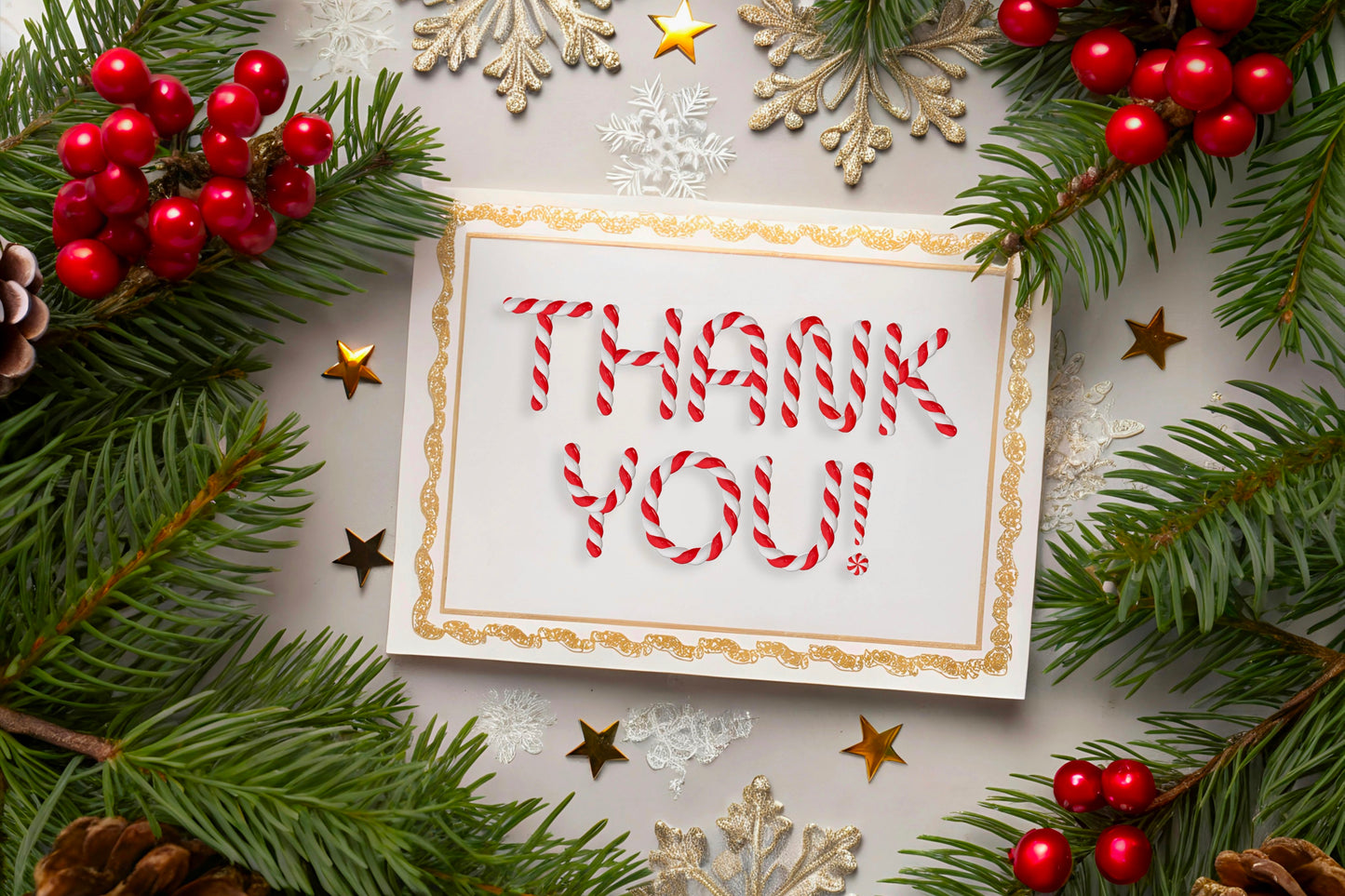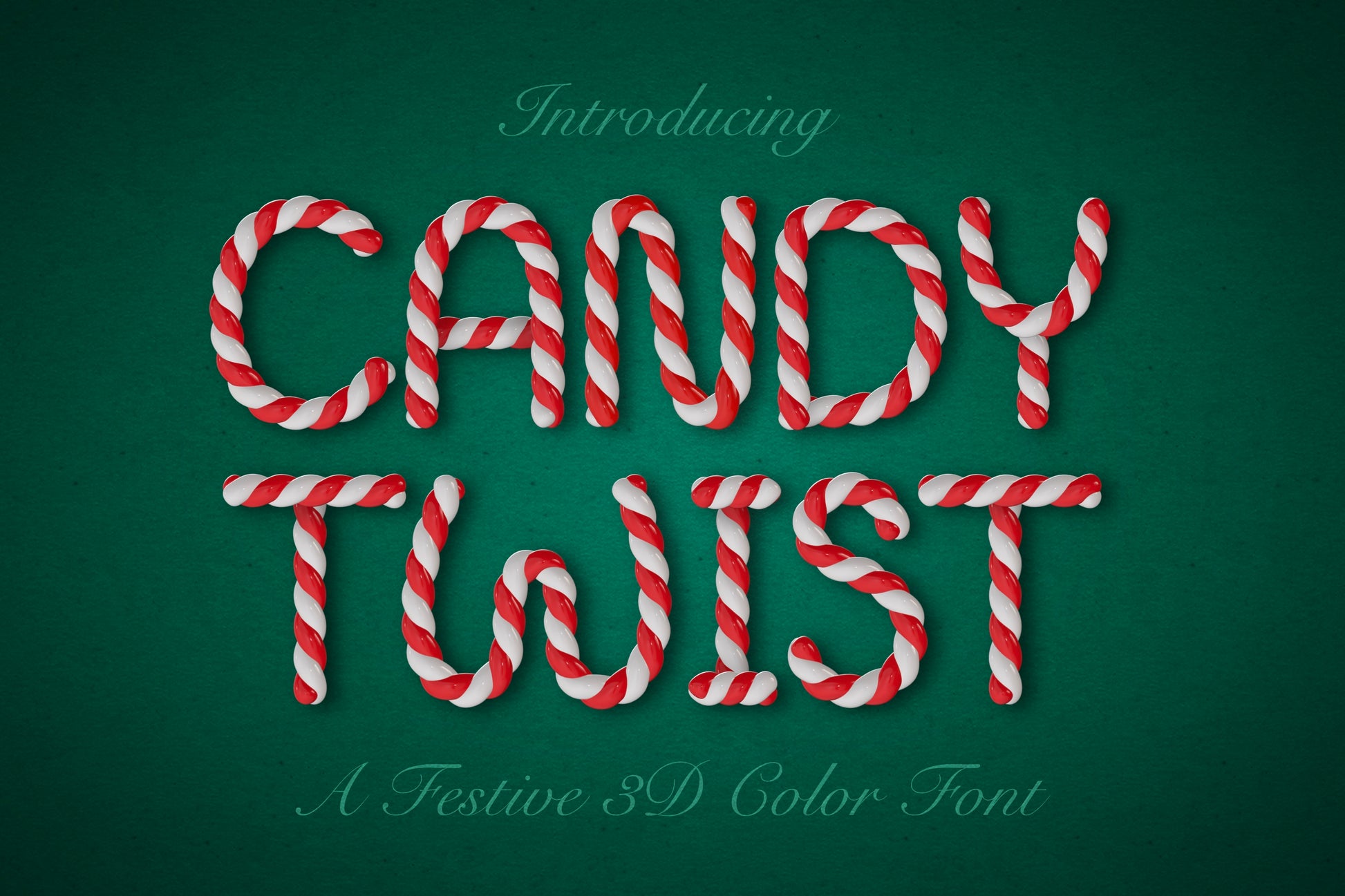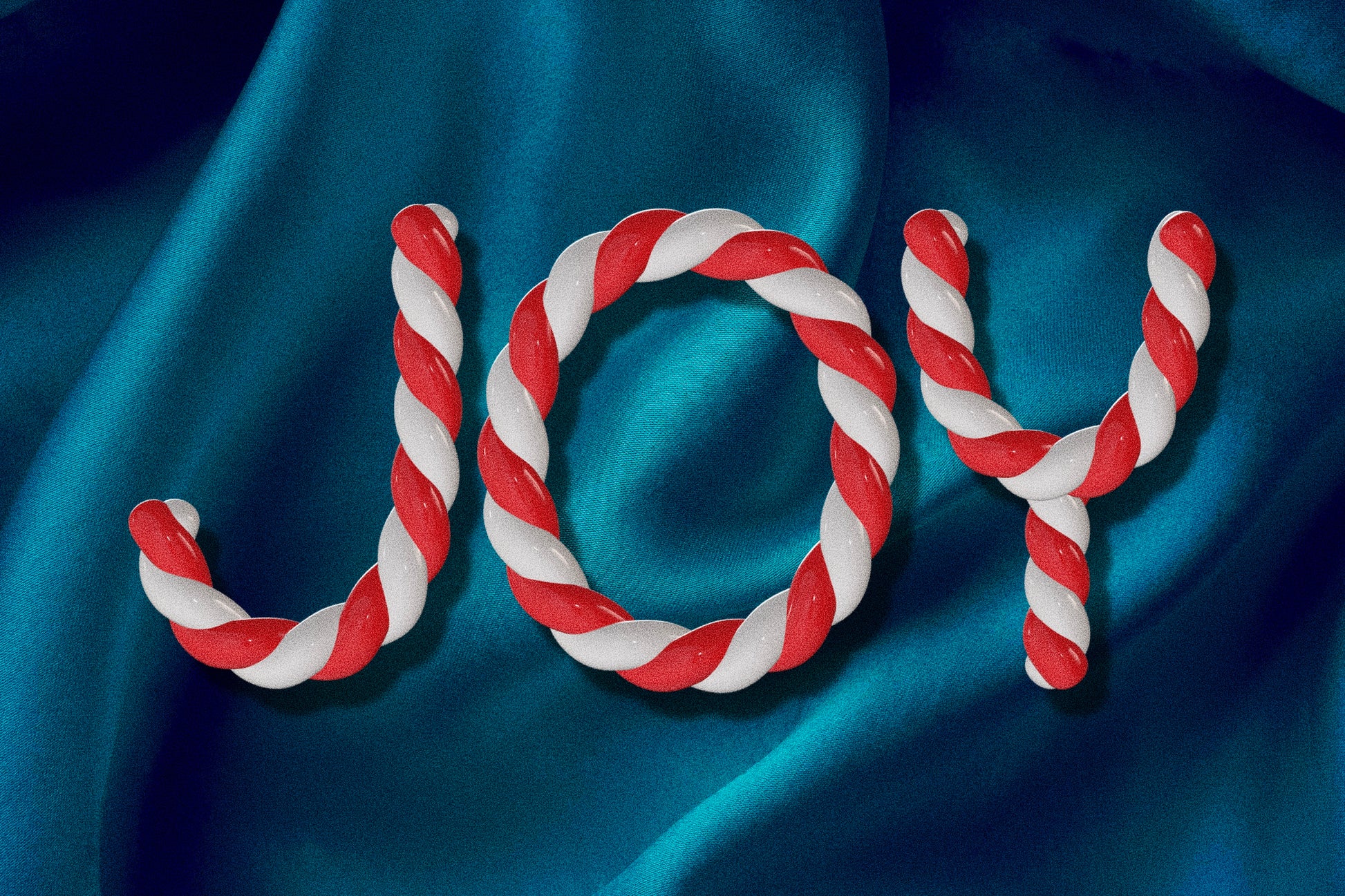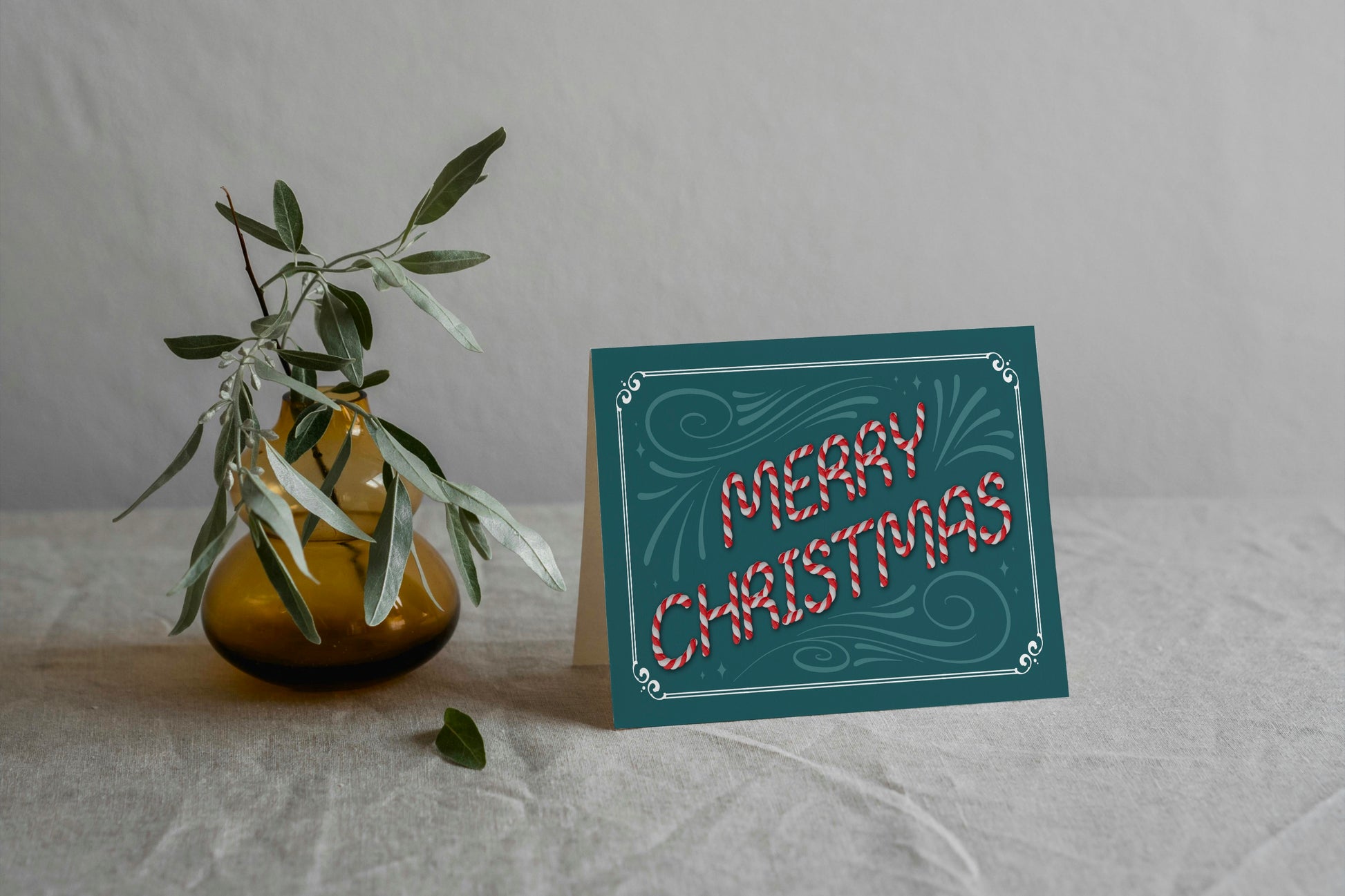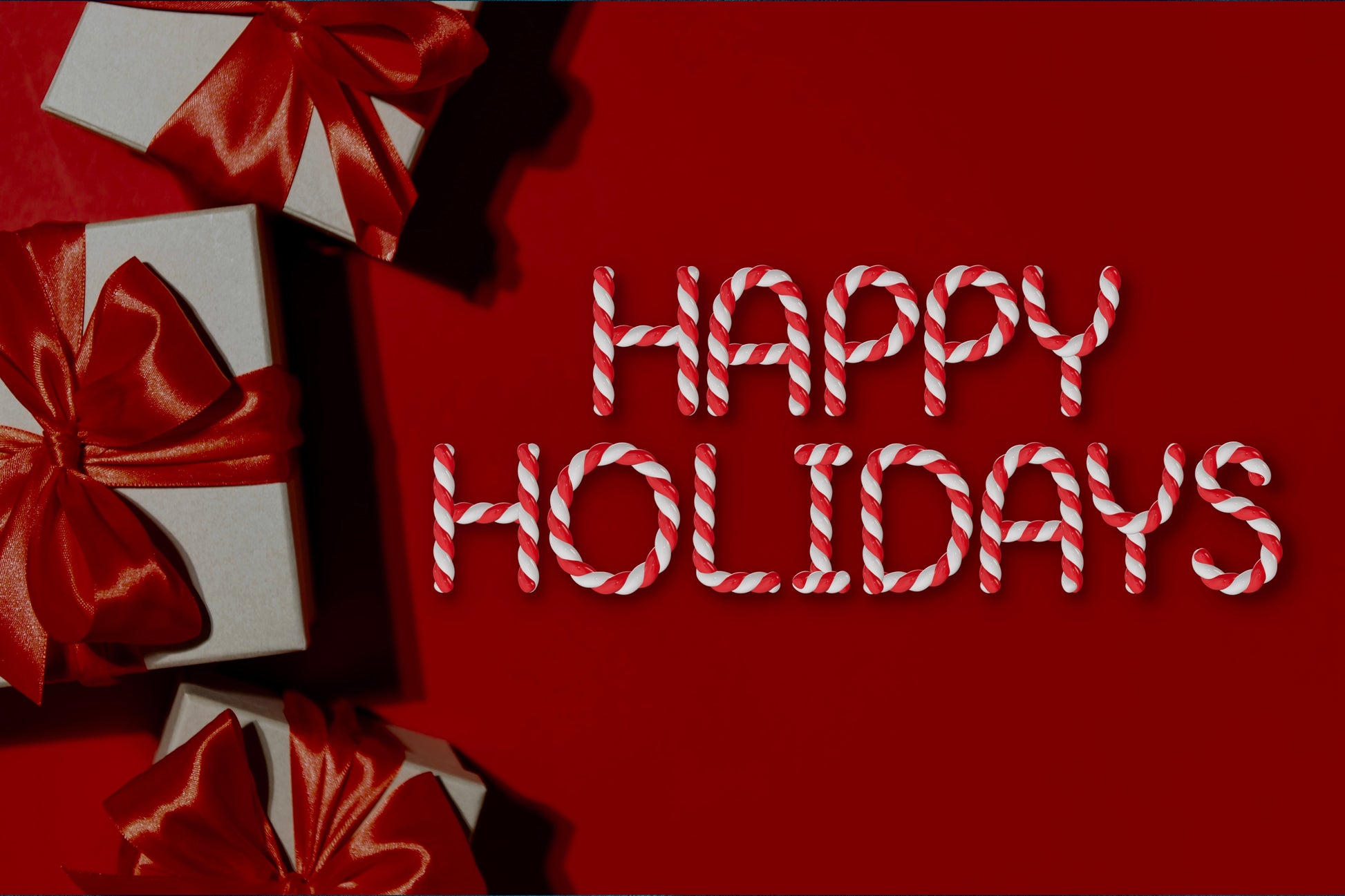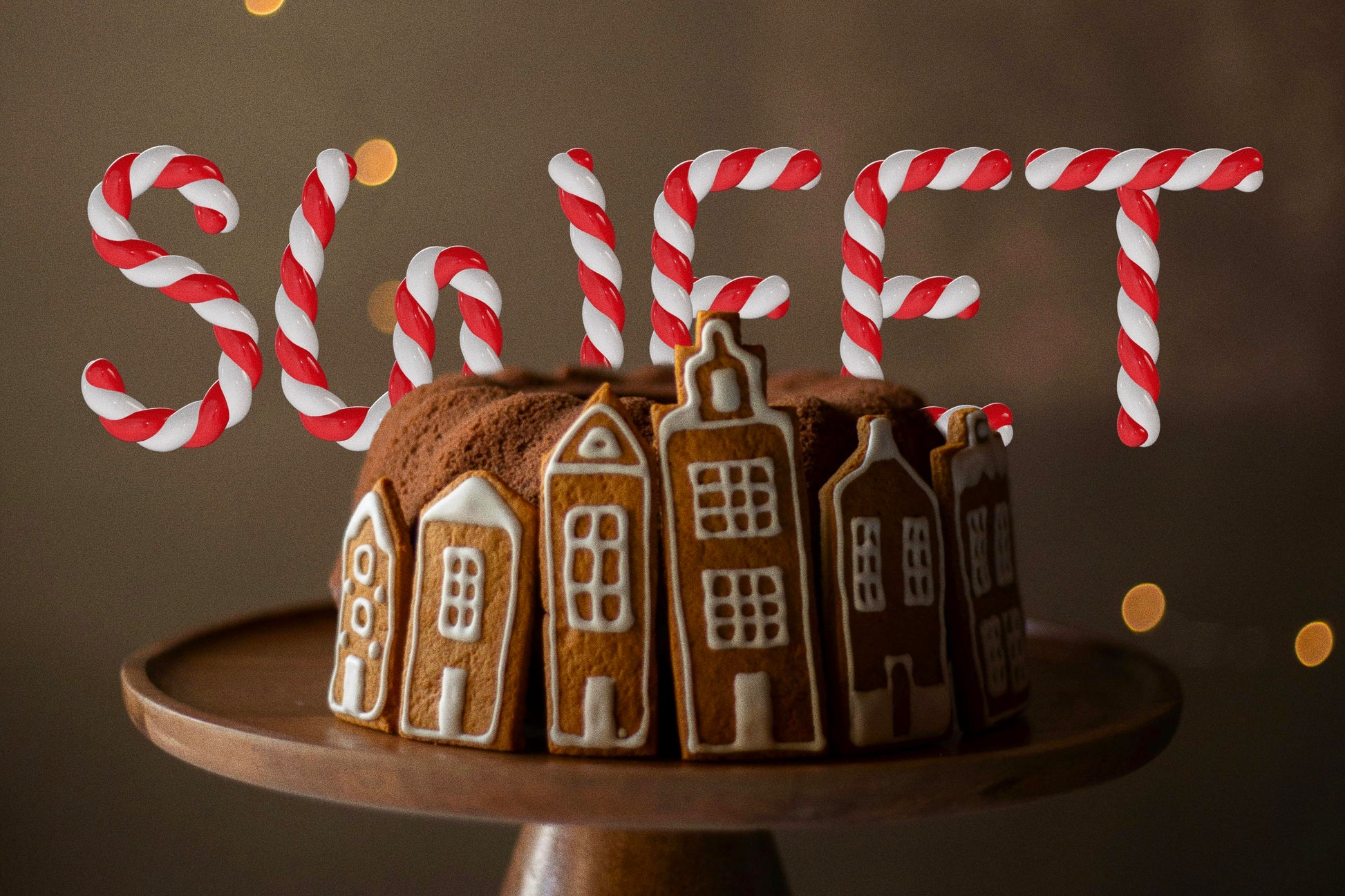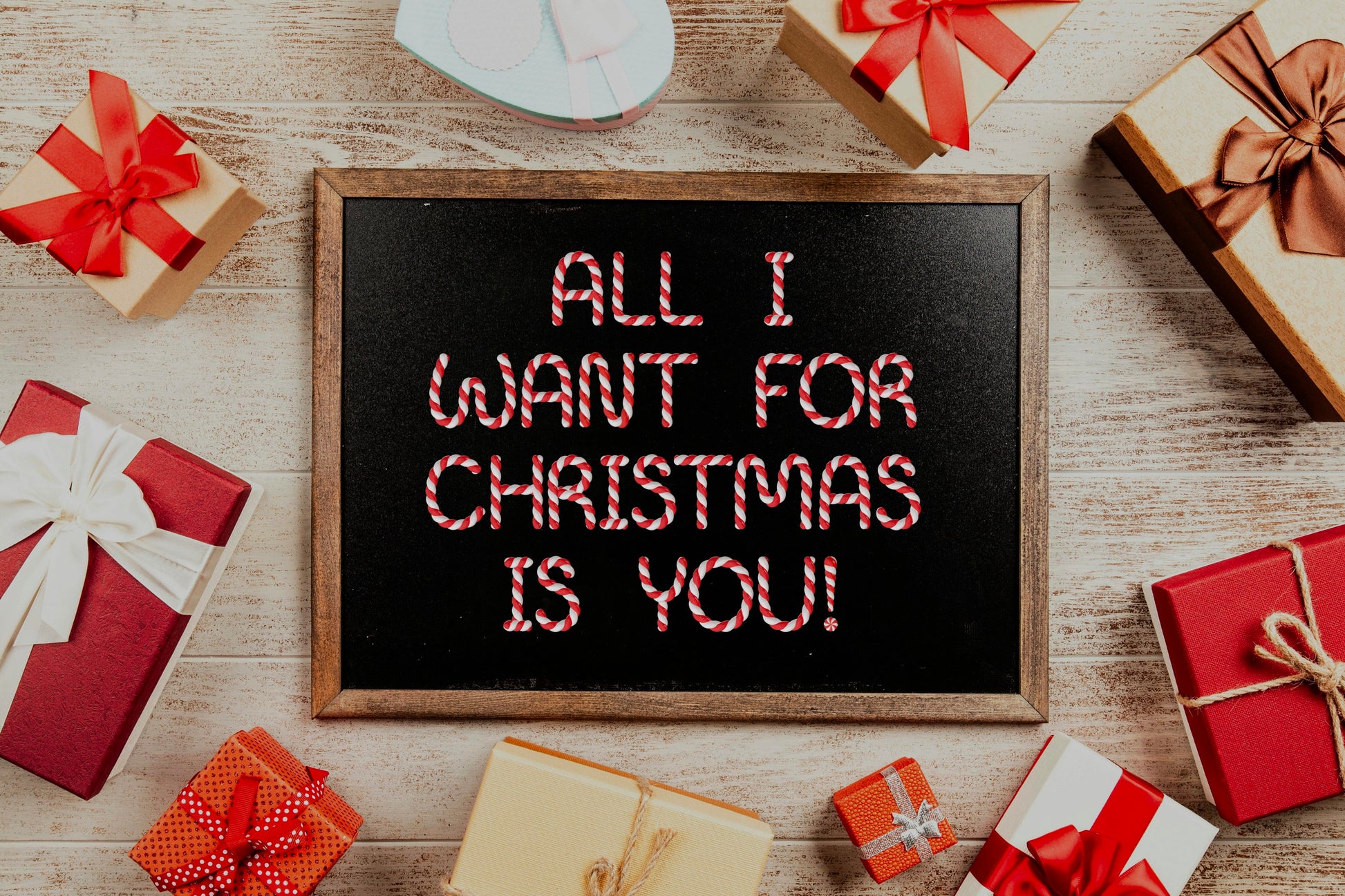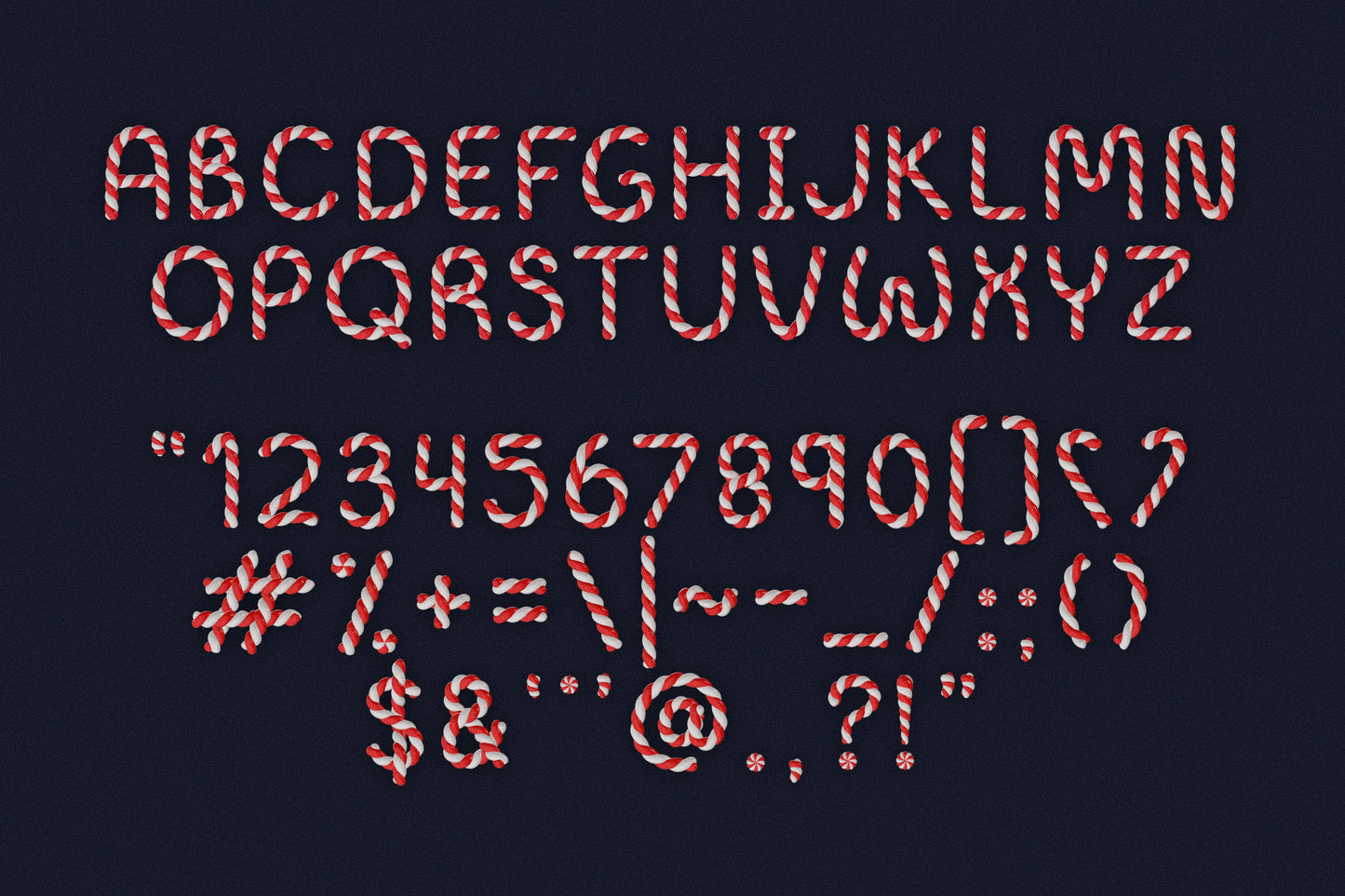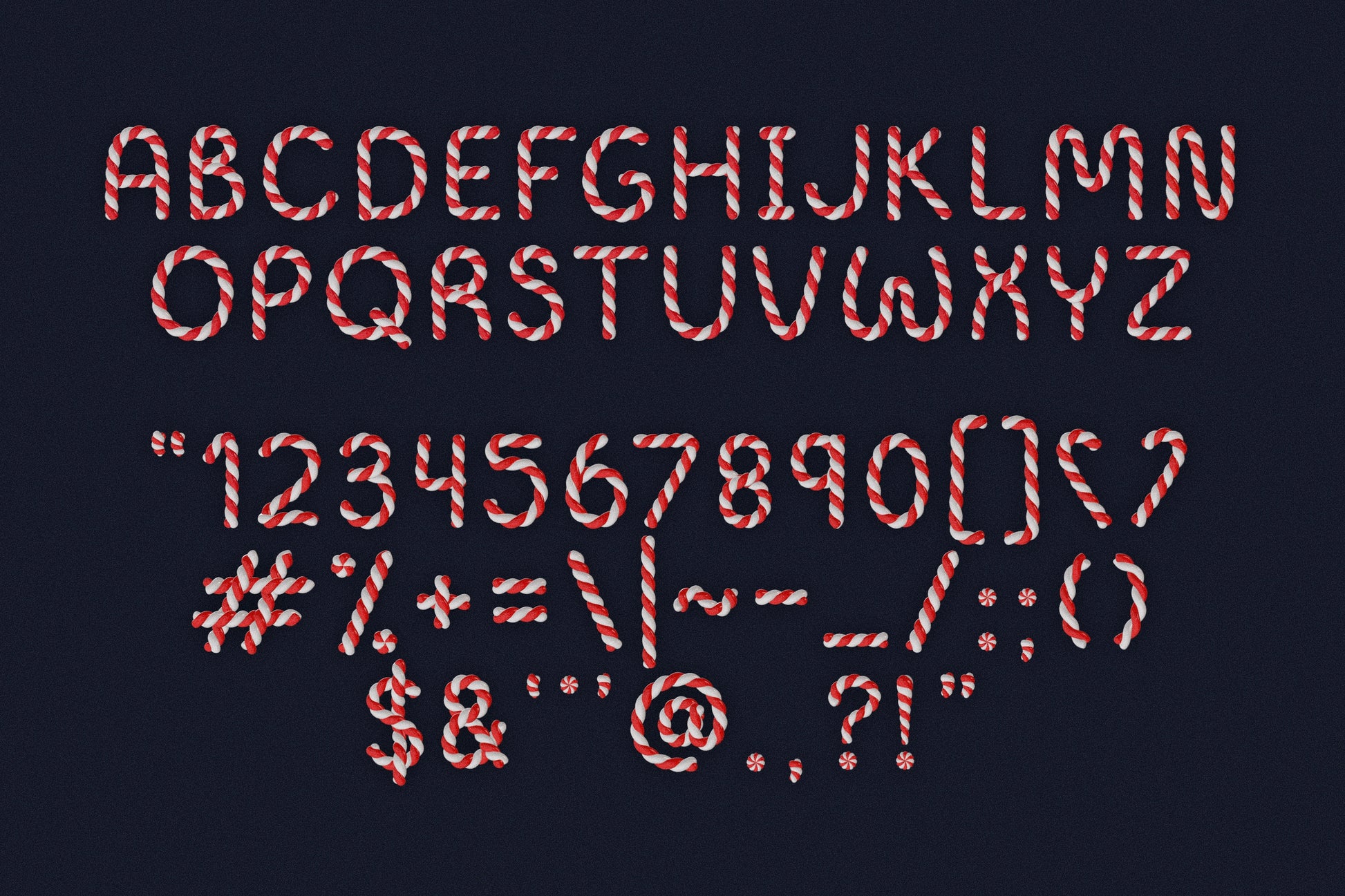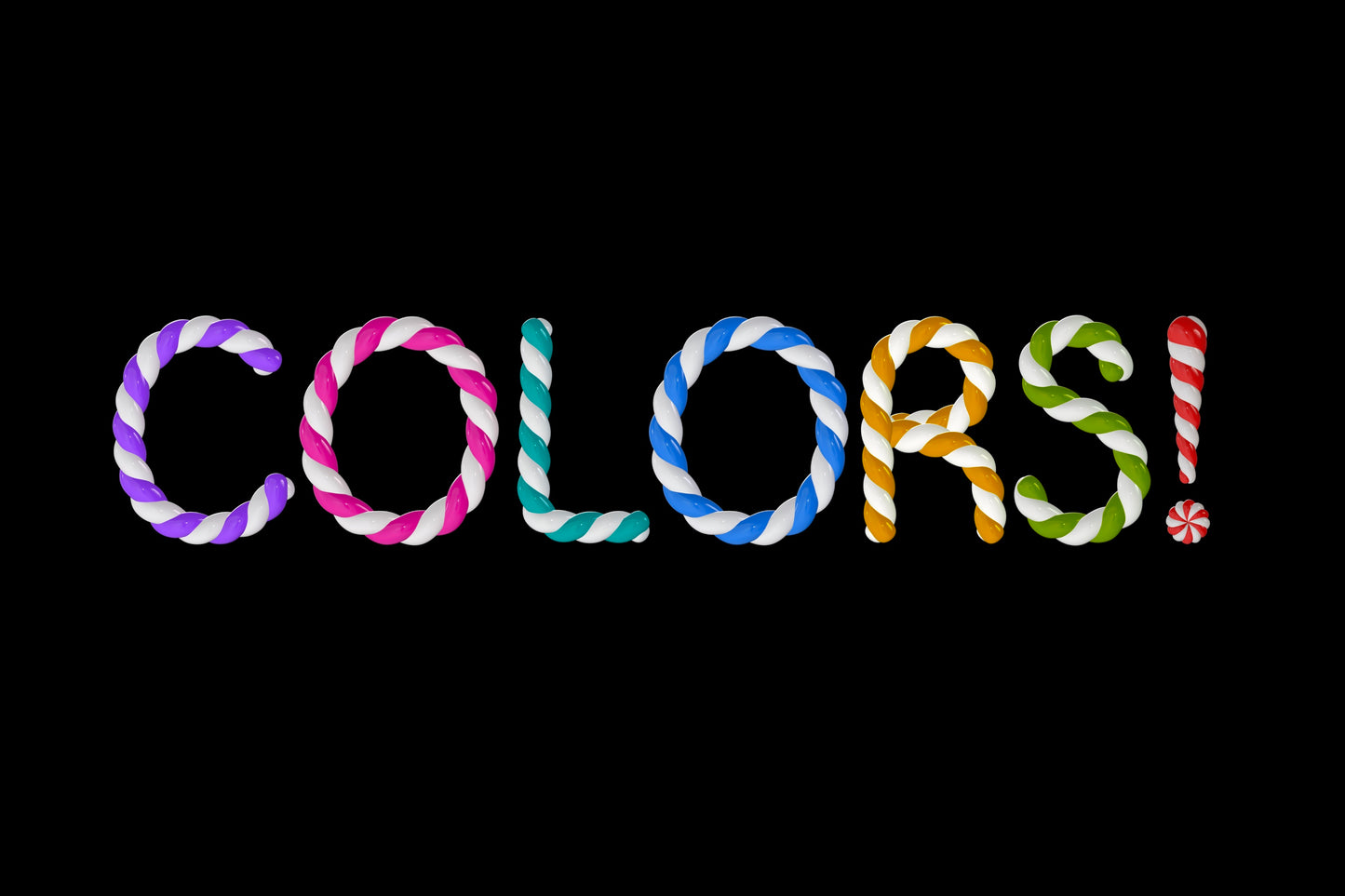
Candy Twist 3D SVG Color Font
Introducing the Candy Twist color font! This unique, 3D rendered font is a shiny, intertwined, all caps candy cane inspired type. It would be absolutely perfect for festive holiday designs, casual, playful designs on stickers, invitations, flyers, t-shirts, posters, children’s branding, magazines, and much more!